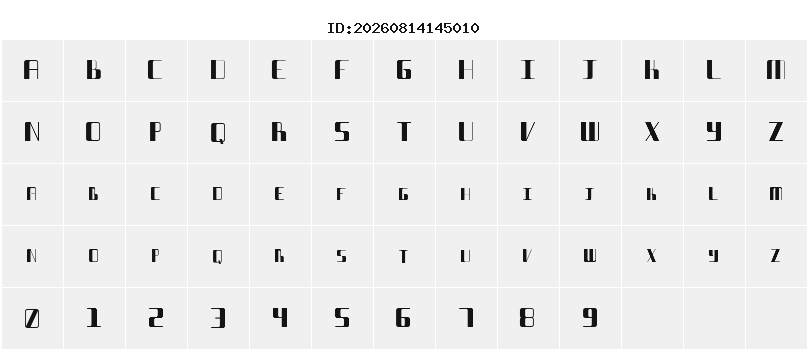
• Font Name: Streamway Compact
• Designer: Ken Flores
About Streamway Compact.ttf
Streamway Compact.ttf is a modern, elegant sans-serif font designed for ultimate readability and visual harmony. Perfect for branding, headlines, web design, and print materials.